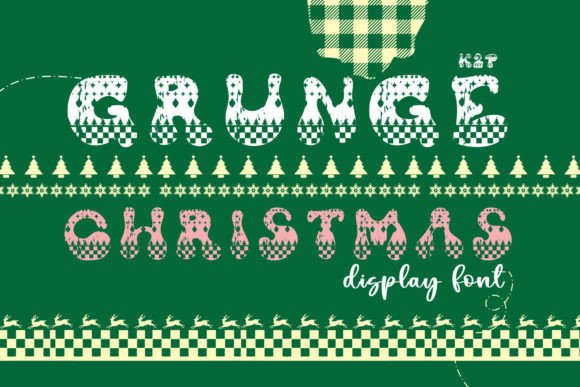
In the realm of fonts, Grunge Christmas Font emerges as a captivating masterpiece, a design that embodies the jubilant spirit of the yuletide season with its array of delightful and captivating characteristics.
Immerse yourself in the charm of this decorative display font, where the echoes of Christmas carols dance upon the page, and the scent of gingerbread and cinnamon lingers in the air. Grunge Christmas Font is not merely a collection of letters; it is an experience, a journey into the heart of the jolliest time of the year.
With each stroke of this font, you'll feel the warmth of a crackling fire, the joy of gathering with loved ones, and the magic that fills the air on Christmas Eve. Whether you're creating holiday cards, festive posters, or whimsical invitations, Grunge Christmas Font will transform your designs into enchanting works of art.
The font's meticulously crafted glyphs exude a vintage, grunge aesthetic, evoking a sense of nostalgia and heartfelt tradition. The characters dance and twirl across the screen, as if caught in a flurry of snowflakes, carrying with them the spirit of the season.
With its playful and inviting style, Grunge Christmas Font is perfect for capturing the essence of Christmas in all its glory. Let your creativity soar as you use it to design eye-catching social media posts, charming gift tags, or heartfelt holiday greetings.
Whether you're a seasoned designer or just starting your creative journey, Grunge Christmas Font will ignite your imagination and make your designs sparkle with festive cheer. Embrace the magic of this font and let it transport you to a world of enchantment and wonder, where the spirit of Christmas comes alive in every stroke.